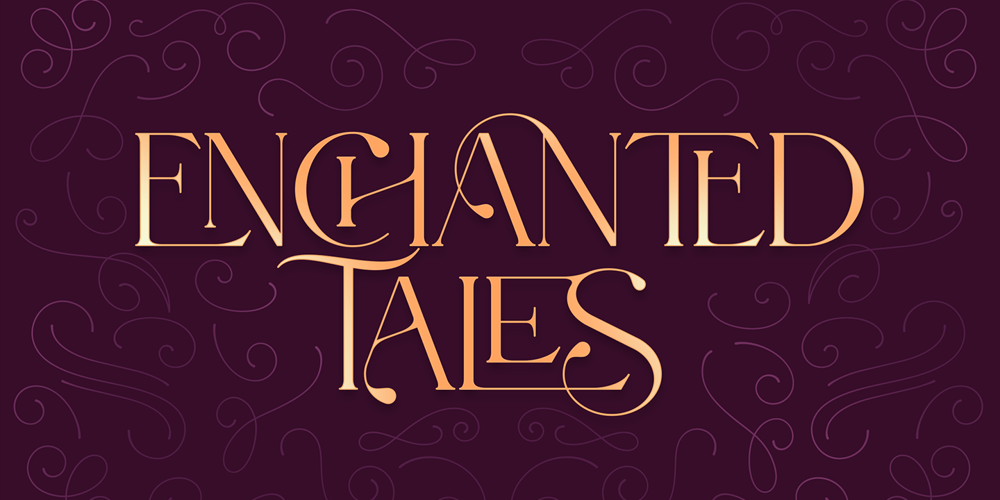
Enchanted Tales
Enchanted Tales font
Enchanted Tales Font Family was designed by Vladimir Fedotov, Plamen Petrov and published by VP Creative Shop. Enchanted Tales contains 2 styles and family package options. “Enchanted Tales” is a captivating serif font that offers a blend of classic elegance and modern versatility, making it an ideal choice for a wide range of creative projects. This font boasts an impressive support for 87 languages, ensuring global accessibility and inclusivity in your designs. One of the standout features of Enchanted Tales is its extensive collection of over 150 ligature glyphs, each meticulously crafted to add a unique touch of sophistication and flair to your text.